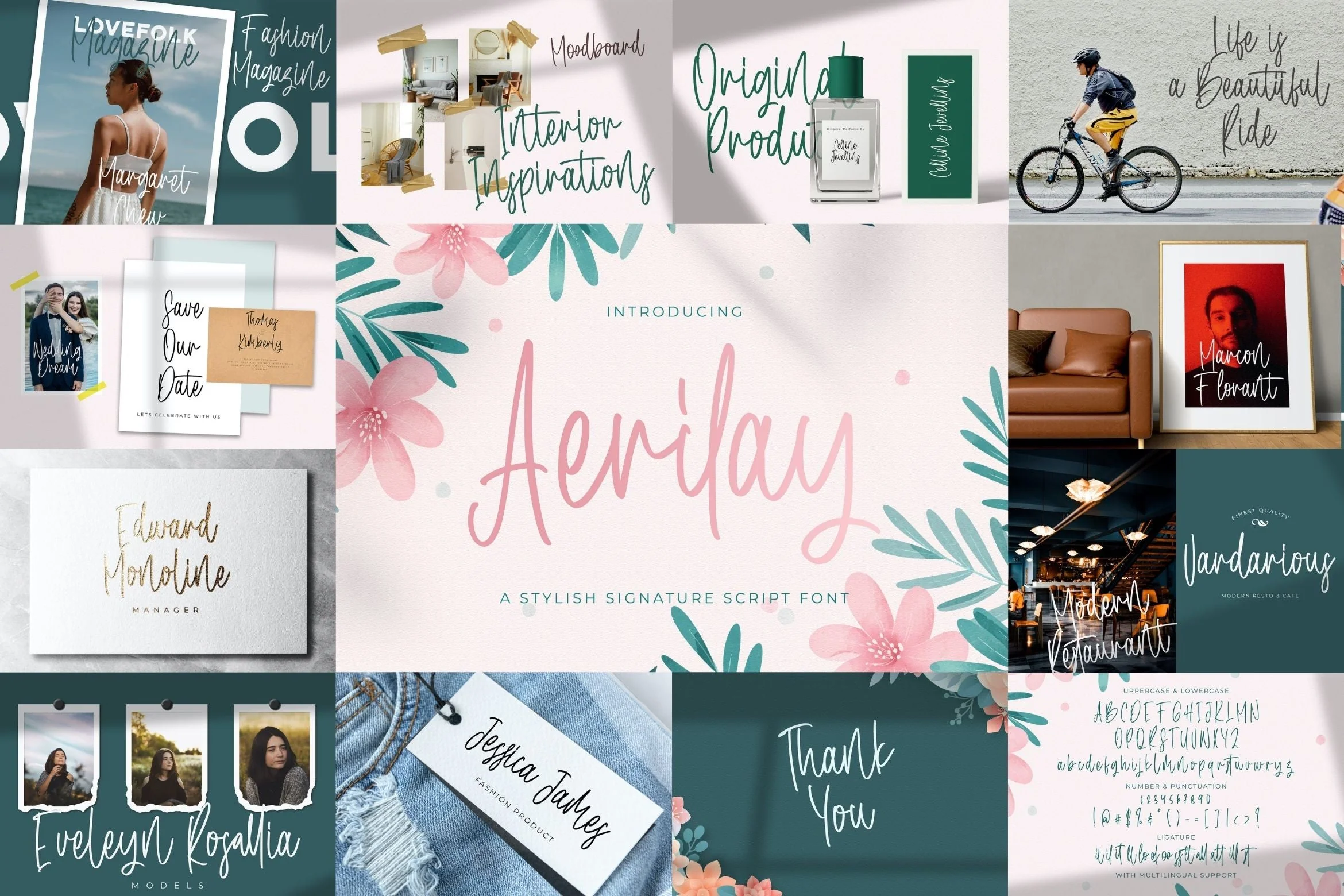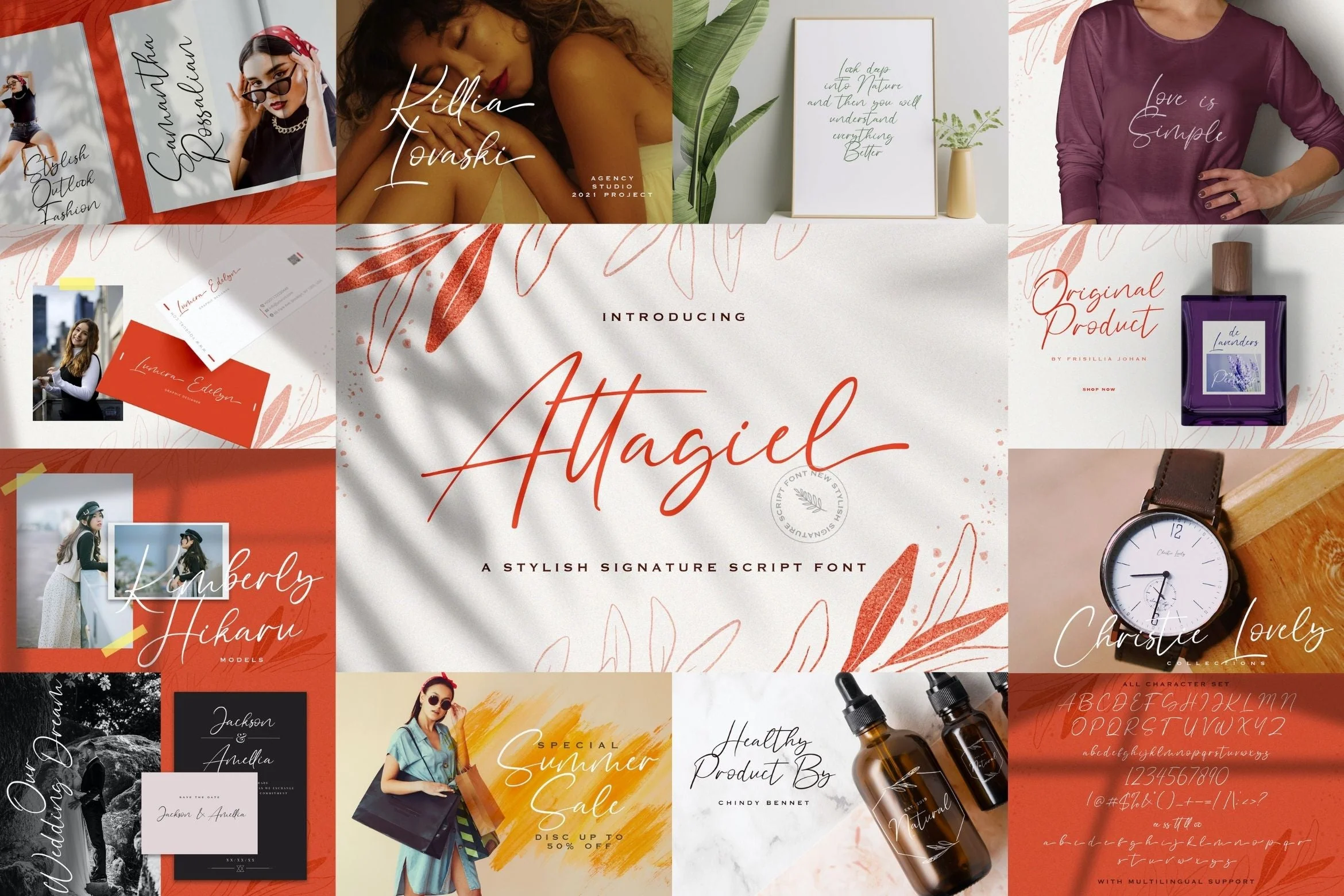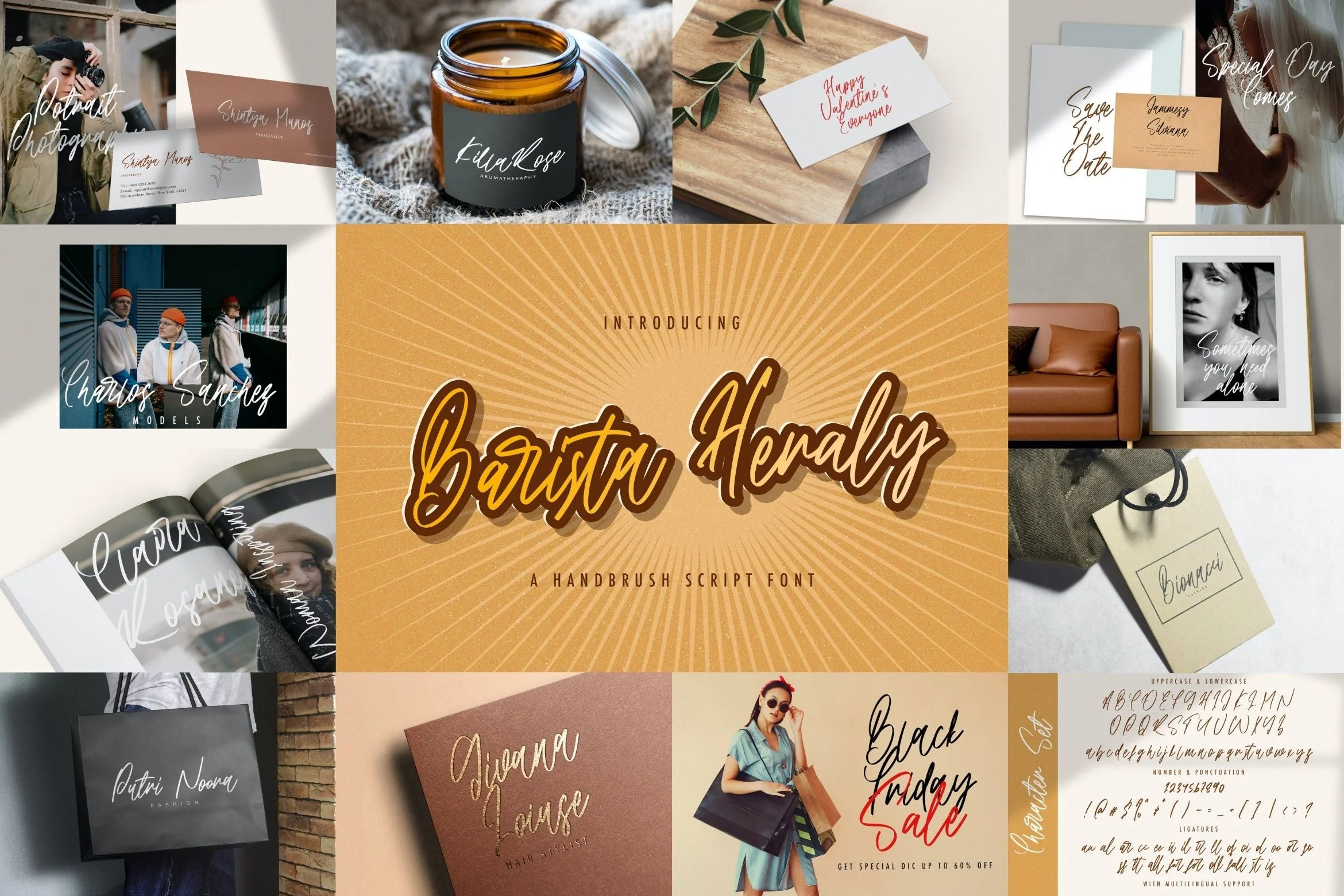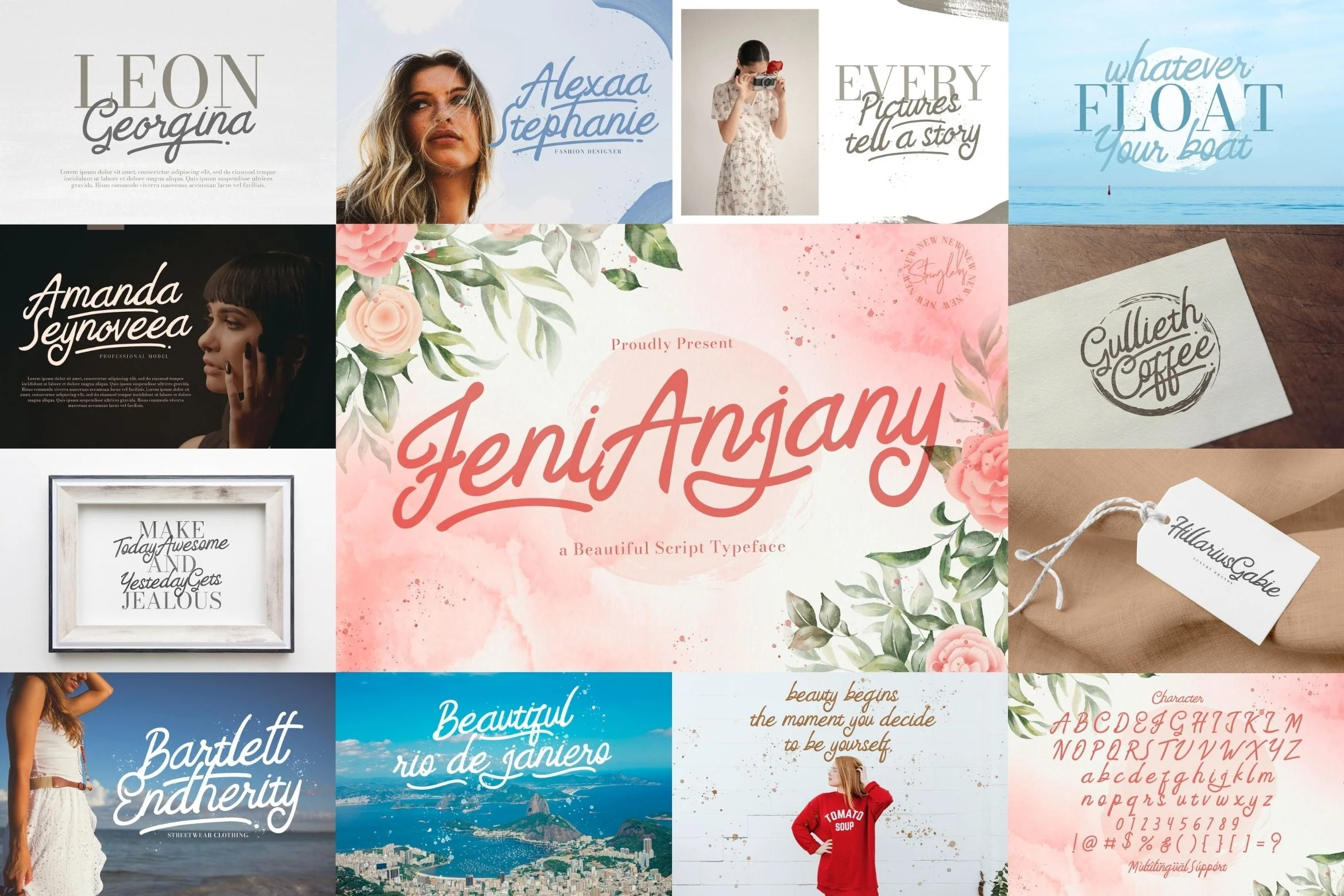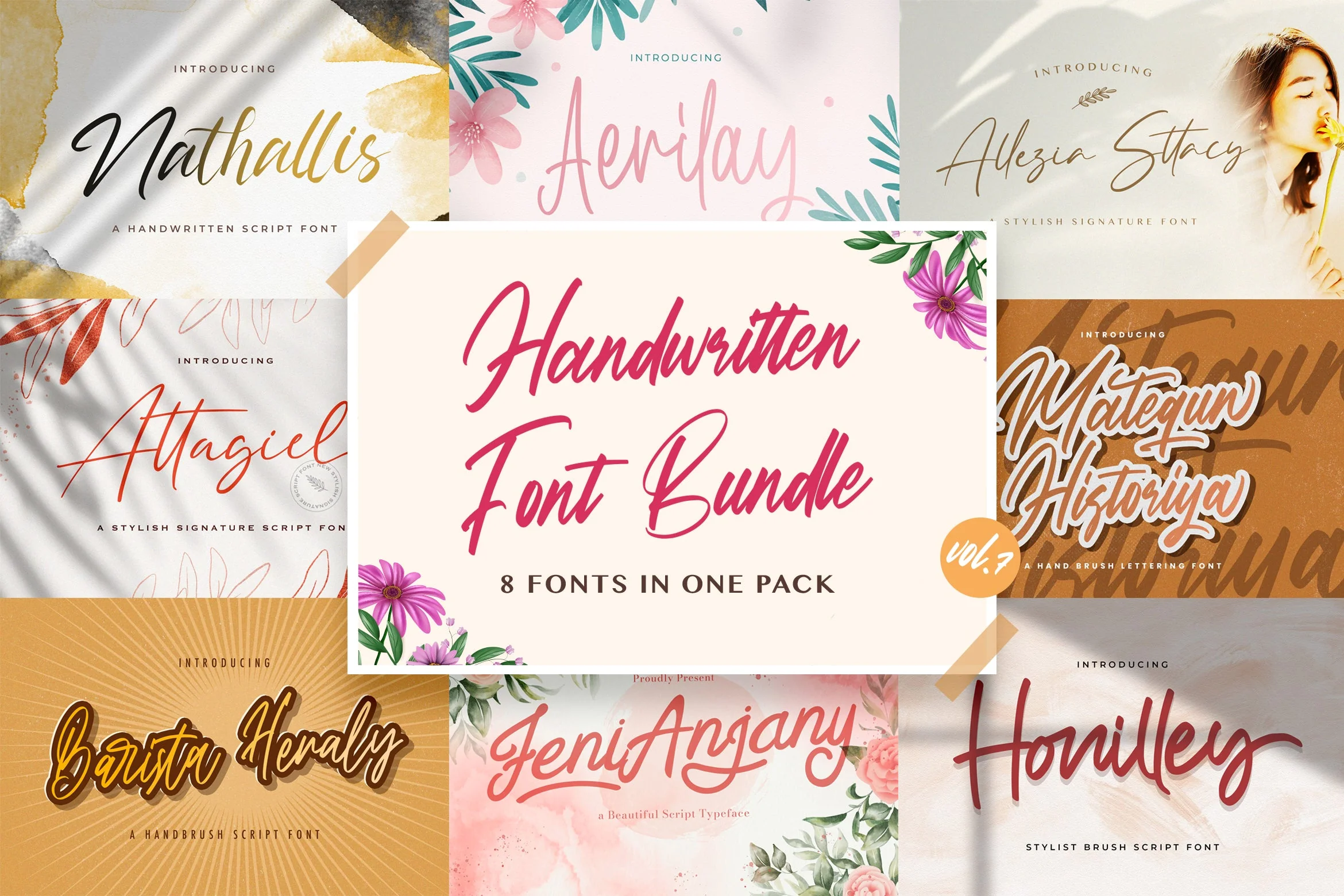
Handwritten Font Bundle Vol 7 is a delicate, elegant and flowing handwritten font. This font bundle contains 8 high quality handwritting script font, it will look simply magical in a wide range of design projects, and also that will look particularly adept when used in logos, branding, packaging design, and much more. It has beautiful and well balanced characters and as a result, it matches a wide pool of designs. Add it to your most creative ideas and notice how it makes them come alive!
1. Nathallis
2. Matequn Historiya
3. Honilley
4. Feny Anjany
5. Barista Heraly
6. Attagiel
7. Allezia Sttacy
8. Aerilay
Handwritten Font Bundle Vol 7 is a delicate, elegant and flowing handwritten font. This font bundle contains 8 high quality handwritting script font, it will look simply magical in a wide range of design projects, and also that will look particularly adept when used in logos, branding, packaging design, and much more. It has beautiful and well balanced characters and as a result, it matches a wide pool of designs. Add it to your most creative ideas and notice how it makes them come alive!
1. Nathallis
2. Matequn Historiya
3. Honilley
4. Feny Anjany
5. Barista Heraly
6. Attagiel
7. Allezia Sttacy
8. Aerilay